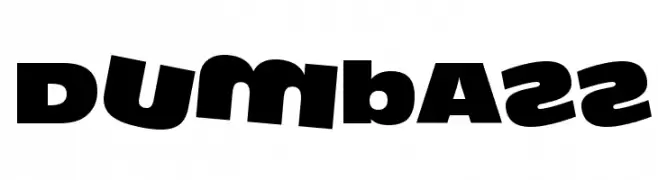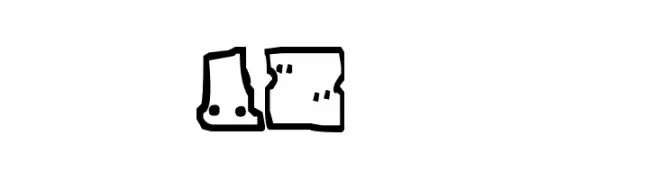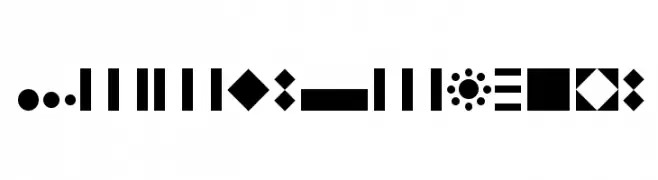
A bold, playful font with exaggerated strokes and a cartoonish style.
A playful, cartoonish font with characters integrated into dynamic illustrations.
A playful, outlined font with a cartoonish and bold style.
A bold, playful font with a cartoonish and whimsical style.
A playful, bold font with a cartoonish and whimsical style.